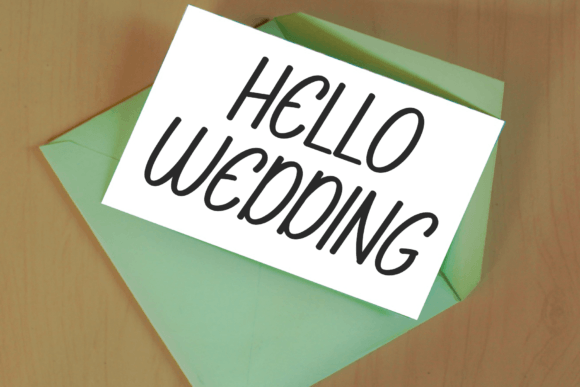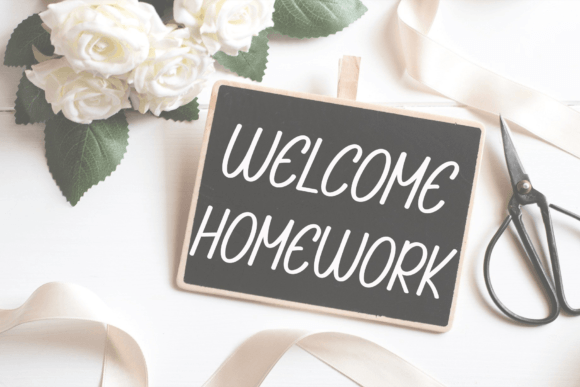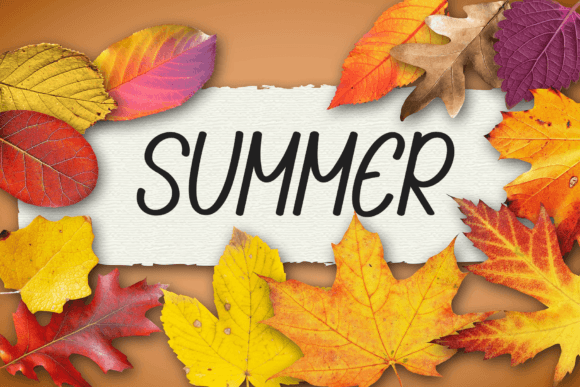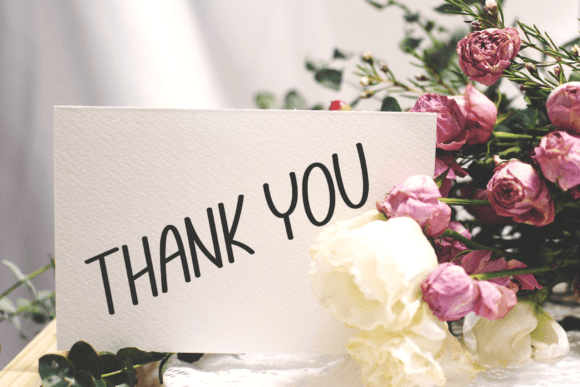
Authentic Font
About Authentic Font
“Authentic” is not just a font; it’s a fancy handwritten typeface crafted to enhance your creative work. This versatile font adds an extra touch of creativity and style to various design projects, making it suitable for logo design, social media graphics, movie titles, book titles, and more. With the Authentic font, you have the tools to create stunning and visually appealing work.
The fancy handwritten style of Authentic font brings a unique and artistic flair to your designs. Its distinctive charm can elevate the visual identity of your brand, project, or content, ensuring that it stands out and makes a memorable impression.
In logo design, Authentic font becomes a key element that communicates creativity and authenticity. The handwritten aesthetic adds a personal touch, making your brand identity more relatable and engaging for your audience.
For social media graphics, where visual appeal is essential, Authentic font shines. Whether used for Instagram posts, Facebook covers, or other social media visuals, the font adds a touch of sophistication and creativity to your online presence, enhancing your overall brand image.
Movie titles and book titles benefit from the stylish allure of Authentic font. Its fancy handwritten design can transform titles into eye-catching and memorable elements, setting the tone for the content and capturing the audience’s attention.
The versatility of Authentic font extends to various creative projects, allowing you to explore its potential in different contexts. Its suitability for a range of applications makes it a valuable tool for designers seeking to infuse their work with a sense of authenticity and artistic expression.
In conclusion, Authentic font is more than just a typeface; it’s a design asset that invites creativity and uniqueness into your projects. Whether you’re creating logos, social media graphics, movie titles, or book titles, let Authentic font be the elegant and fancy element that elevates your work, enabling you to produce stunning and captivating designs.